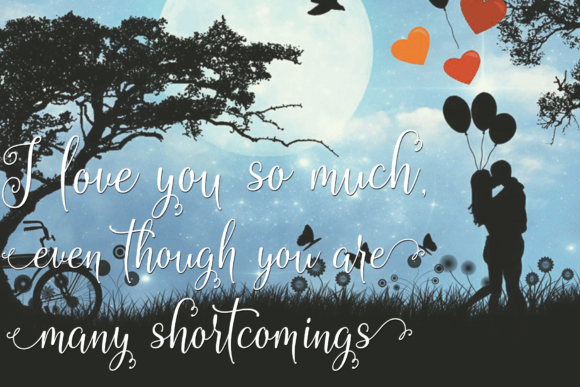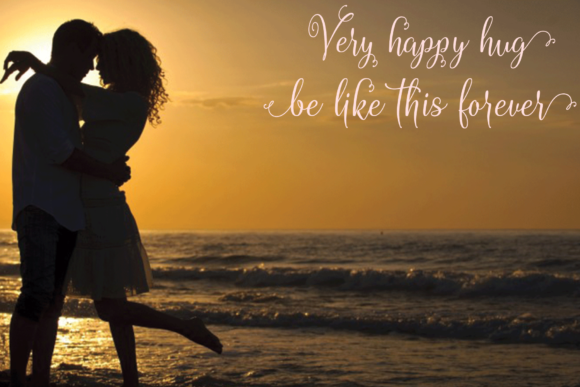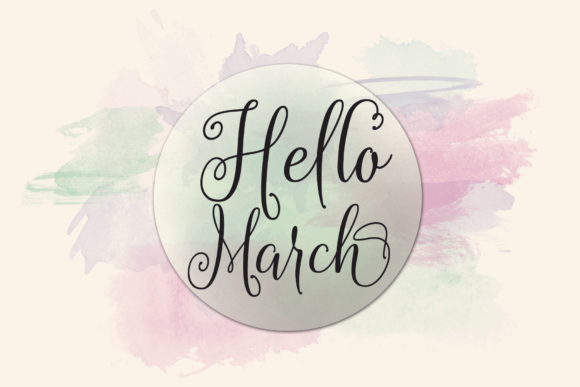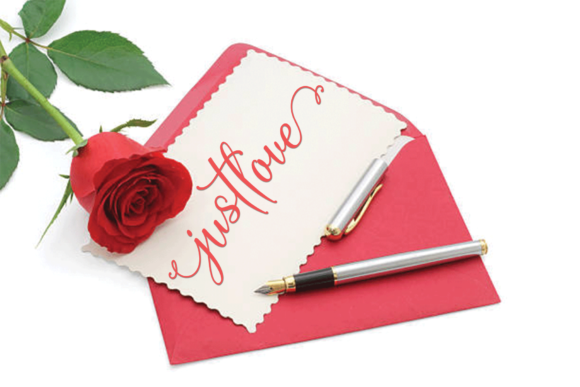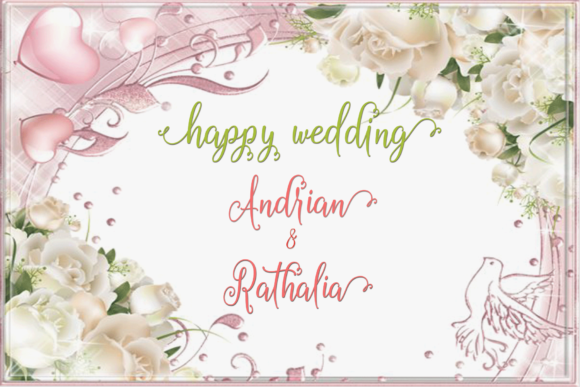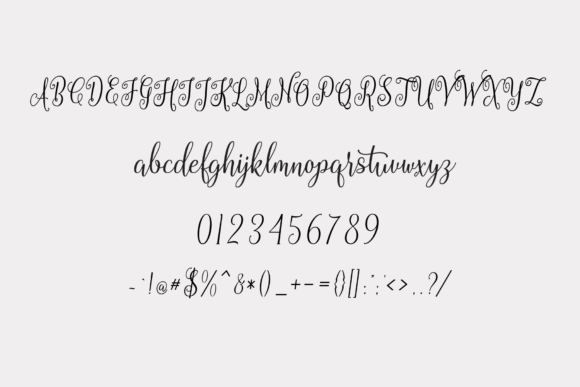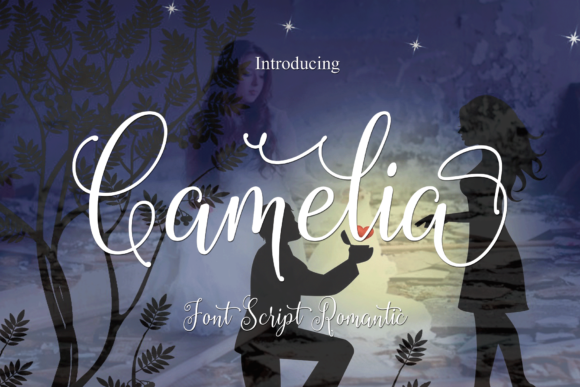
Introducing Camelia Font: Elevate Your Designs with Modern Calligraphy
In the world of typography, calligraphy fonts have always been a popular choice for designers and crafters looking to add a touch of elegance and sophistication to their work. Among the numerous calligraphy fonts available, Camelia Font stands out as a modern and unique option that can instantly elevate your designs. In this article, we’ll explore the features and benefits of Camelia Font, and how it can be used to add a natural touch to your creative projects.
What is Camelia Font?
The Camelia is a modern calligraphy font that boasts a fresh and contemporary take on traditional calligraphy. It features modern and unique forms of calligraphy that are perfect for designers and crafters looking to add a personal touch to their work. With its elegant and flowing lines, Camelia Font is ideal for a wide range of design applications, from wedding invitations and stationery to branding and advertising.
Key Features of Camelia Font
- Modern Calligraphy: Camelia Font features a modern take on traditional calligraphy, with unique and stylish letterforms that are sure to impress.
- Elegant and Flowing Lines: The font’s elegant and flowing lines make it perfect for designs that require a touch of sophistication and elegance.
- Natural Touch: Camelia Font has a natural and organic feel to it, making it ideal for designs that require a personal and human touch.
- Versatile: The font is versatile and can be used for a wide range of design applications, from print to digital media.
Benefits of Using Camelia Font
So, why choose Camelia Font for your design projects? Here are just a few benefits of using this beautiful modern calligraphy font:
- Adds a Personal Touch: Camelia Font adds a personal and human touch to your designs, making them more relatable and engaging.
- Enhances Brand Identity: The font’s unique and stylish letterforms can help to enhance your brand identity and make your designs stand out.
- Perfect for Creative Projects: Camelia Font is perfect for creative projects, such as wedding invitations, stationery, and branding.
How to Use Camelia Font in Your Designs
Using Camelia Font in your designs is easy. Here are a few tips to get you started:
- Pair with Other Fonts: Pair Camelia Font with other fonts to create a unique and stylish typography combination.
- Use for Headings and Titles: Use Camelia Font for headings and titles to add a touch of elegance and sophistication to your designs.
- Add a Personal Touch: Use Camelia Font to add a personal touch to your designs, such as in wedding invitations and stationery.
- Experiment with Colors: Experiment with different colors to find the perfect combination that works with your design.
| Font Name | Camelia Font |
| Author | Naqsya.Co |
In conclusion, Camelia Font is a beautiful modern calligraphy font that can add a touch of elegance and sophistication to your designs. With its unique and stylish letterforms, elegant and flowing lines, and natural touch, it’s perfect for designers and crafters looking to create stunning designs. Whether you’re working on a wedding invitation, stationery, or branding project, Camelia Font is a great choice. So why not give it a try and see how it can elevate your designs?
Overall, Camelia Font is a great addition to any designer’s toolkit, and we highly recommend it for anyone looking to add a touch of modern calligraphy to their work.